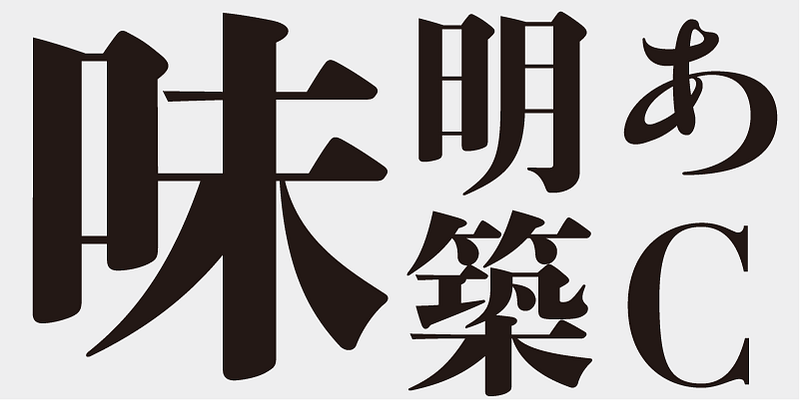
AB Ajimin Chiku C/EB Font Free Download is a bold and culturally expressive Japanese serif typeface that blends the refined structure of Mincho-style fonts with a modern, confident tone. The name "Chiku" (竹), meaning "bamboo," reflects both strength and elegance—while "C" may signify a stylistic variation or character set, and "EB" (Extra Bold) indicates its striking weight, ideal for attention-grabbing display use.
AB Ajimin Chiku C/EB Font Free Download features high stroke contrast, vertical emphasis, and sharply defined serifs—hallmarks of the Mincho tradition—while delivering a clean, powerful visual impact. It’s perfect for book covers, sake or tea packaging, restaurant branding, and signage where tradition and bold presence are essential.
This font supports Hiragana, Katakana, Kanji, and basic Latin characters, making it ideal for bilingual projects that require typographic harmony between Japanese and Western text.
Strong, elegant, and steeped in cultural depth—AB Ajimin Chiku C/EB Font is a top choice for modern Japanese typography that honors tradition while standing out with authority.